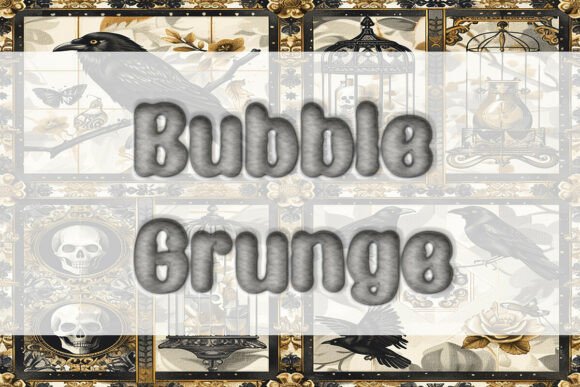
Bubble Grunge Font: Unleash Your Creativity with a Unique Aesthetic
In the world of typography, fonts play a crucial role in conveying messages, expressing emotions, and creating brand identities. Among the numerous fonts available, Bubble Grunge stands out for its distinctive style that effortlessly bridges the gap between edgy and playful. This versatile font is perfect for a wide range of creative projects, from t-shirt graphics and sticker designs to brand identities, magazines, greeting cards, and digital formats. In this article, we’ll explore the features and applications of Bubble Grunge, and how it can elevate your creative projects.
The Unique Aesthetic of Bubble Grunge
Bubble Grunge is a one-of-a-kind font that combines the edginess of grunge with the playfulness of bubble-like letters. Its unique aesthetic is characterized by irregular shapes, bold lines, and a carefree spirit. This font is perfect for designers and creatives looking to add a touch of whimsy and personality to their projects. Whether you’re designing a t-shirt graphic, a sticker, or a brand identity, Bubble Grunge brings a fresh and distinctive look that sets it apart from more traditional fonts.
Perfect for Print and Digital Formats
Bubble Grunge is an incredibly versatile font that excels in both print and digital formats. Its bold and playful design makes it perfect for print projects such as:
- T-shirt graphics: Add a unique touch to your apparel designs with Bubble Grunge.
- Sticker designs: Create quirky and eye-catching stickers with this fun font.
- Magazines: Add a touch of edginess to your magazine layouts with Bubble Grunge.
- Greeting cards: Bring a smile to your recipients’ faces with playful and whimsical greeting cards.
In addition to print, Bubble Grunge is also optimized for digital formats, including:
- SVG files: Use Bubble Grunge to create scalable and versatile SVG files.
- Cricut projects: Perfect for cutting machines, Bubble Grunge adds a creative touch to your Cricut projects.
- Social media: Stand out on social media with eye-catching graphics and posts featuring Bubble Grunge.
- Posters: Give your posters a memorable edge with this unique font.
Unleash Your Creativity with Bubble Grunge
Bubble Grunge is more than just a font – it’s a creative tool that allows you to express yourself in a plethora of ways. Its adaptability and unique style make it perfect for:
- Branding: Create a distinctive brand identity with Bubble Grunge.
- Advertising: Add a touch of whimsy to your ad campaigns with this eye-catching font.
- Packaging: Stand out on store shelves with Bubble Grunge on your product packaging.
- Web design: Use Bubble Grunge to add a creative touch to your website designs.
Whether you’re a professional designer or a DIY enthusiast, Bubble Grunge is an excellent addition to your creative toolkit. Its ease of use and versatility make it accessible to users of all skill levels.
Tips for Using Bubble Grunge Effectively
To get the most out of Bubble Grunge, here are some tips for using it effectively:
- Experiment with colors: Bubble Grunge looks great in bold and bright colors, so don’t be afraid to experiment.
- Mix and match: Combine Bubble Grunge with other fonts to create a unique look.
- Play with sizes: Use Bubble Grunge in different sizes to create visual interest.
- Add effects: Experiment with effects like shadows, outlines, and textures to add depth to your designs.
In conclusion, Bubble Grunge is a versatile and unique font that can elevate your creative projects to the next level. Its distinctive aesthetic, adaptability, and ease of use make it perfect for a wide range of applications, from print and digital formats to branding and advertising. Whether you’re a professional designer or a DIY enthusiast, Bubble Grunge is an excellent addition to your creative toolkit. So why not give it a try and unleash your creativity with Bubble Grunge?